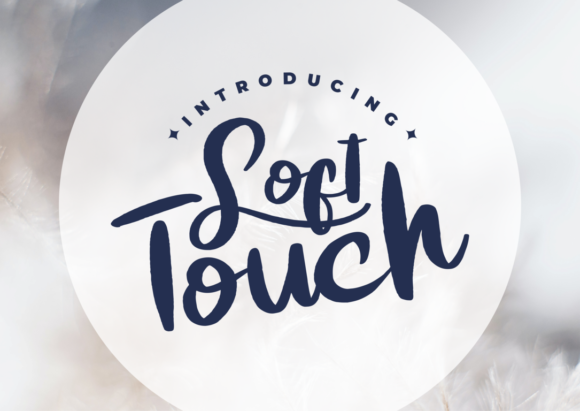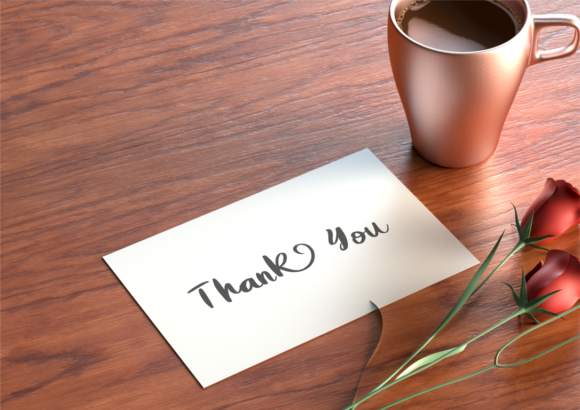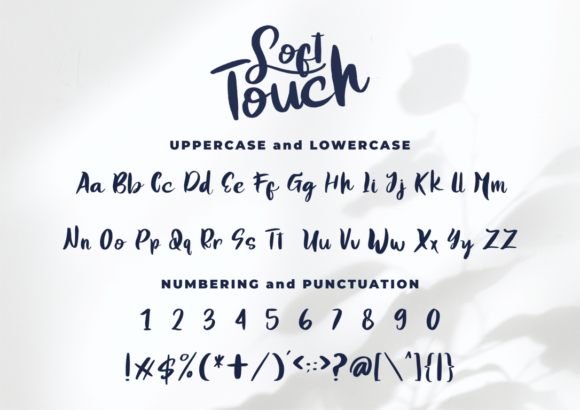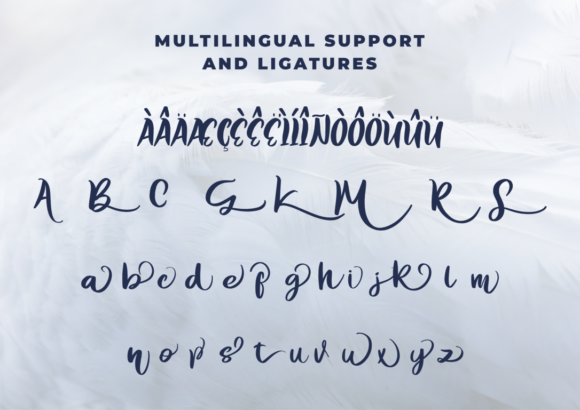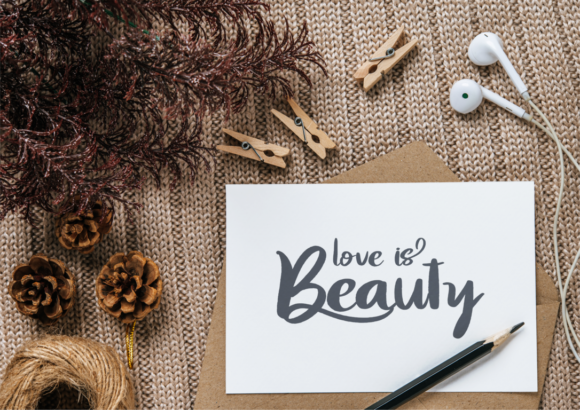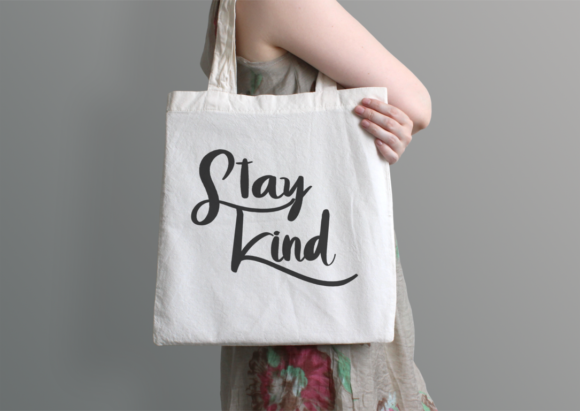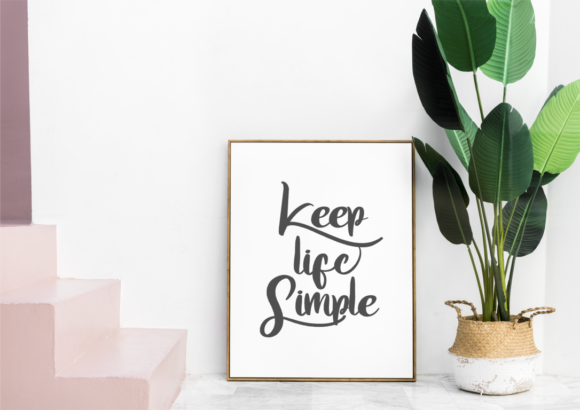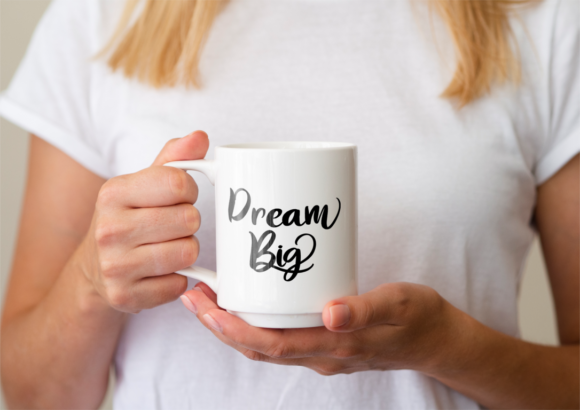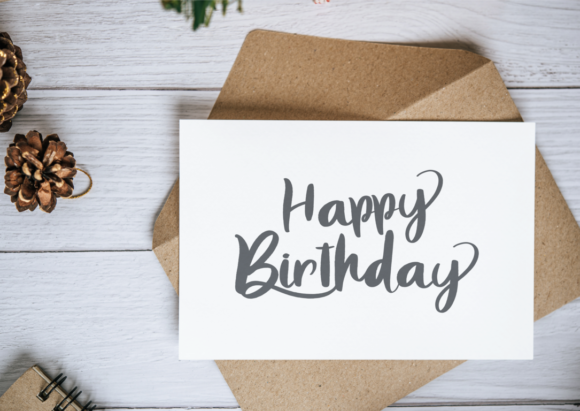
Soft Touch Font
About Soft Touch Font
Soft Touch is a laid-back and adaptable handwritten font. This font is PUA encoded which means you can access all of the glyphs and swashes with ease!